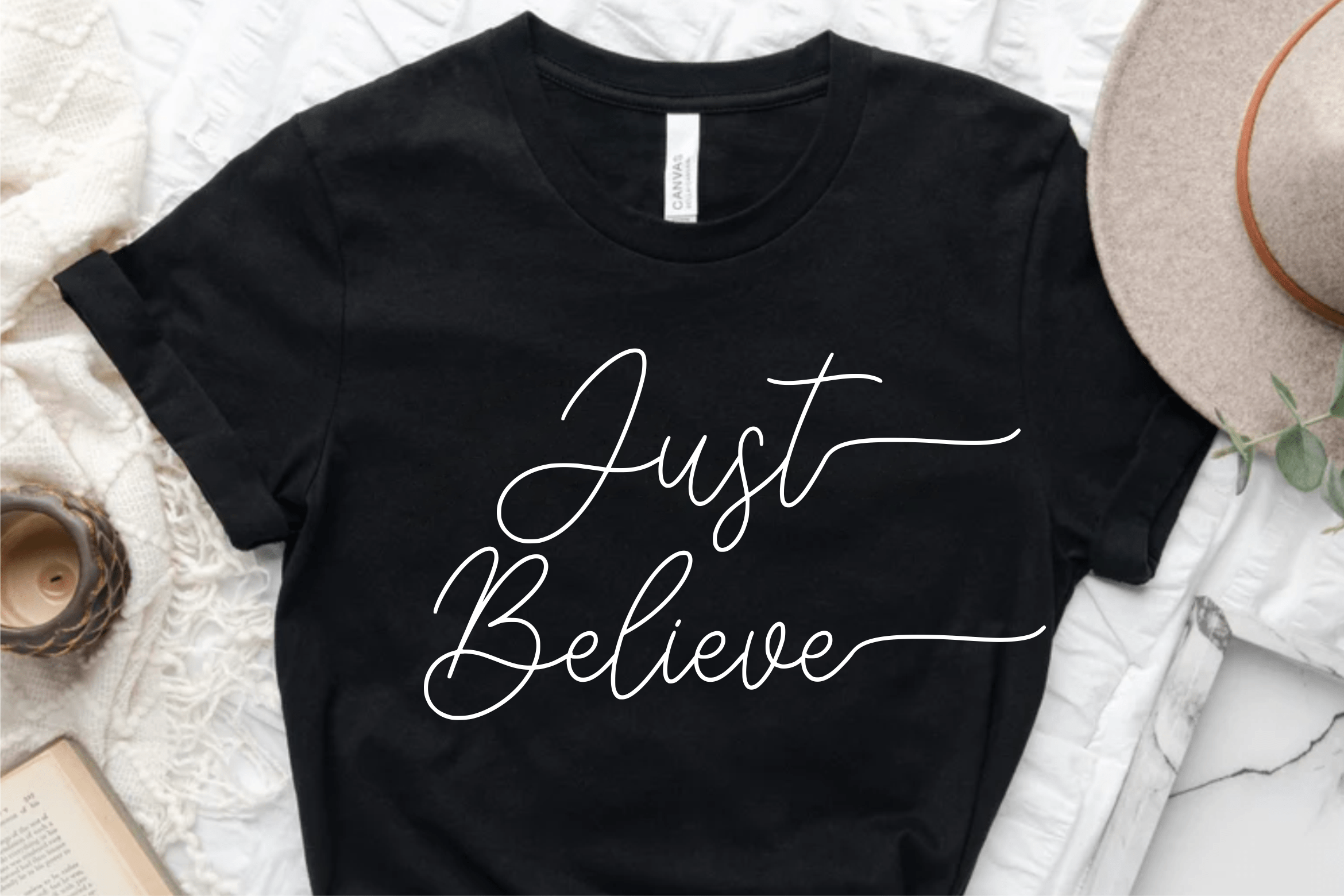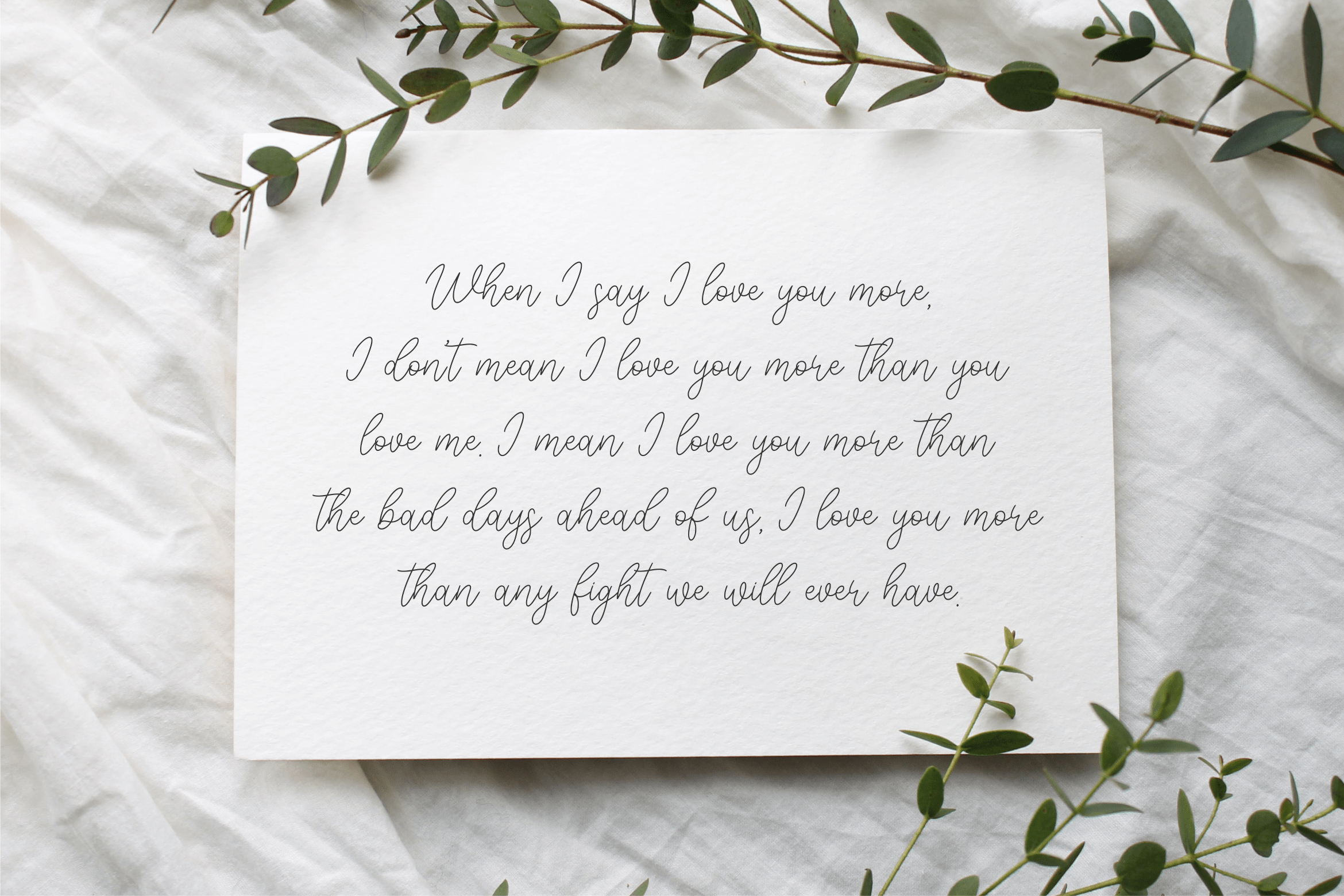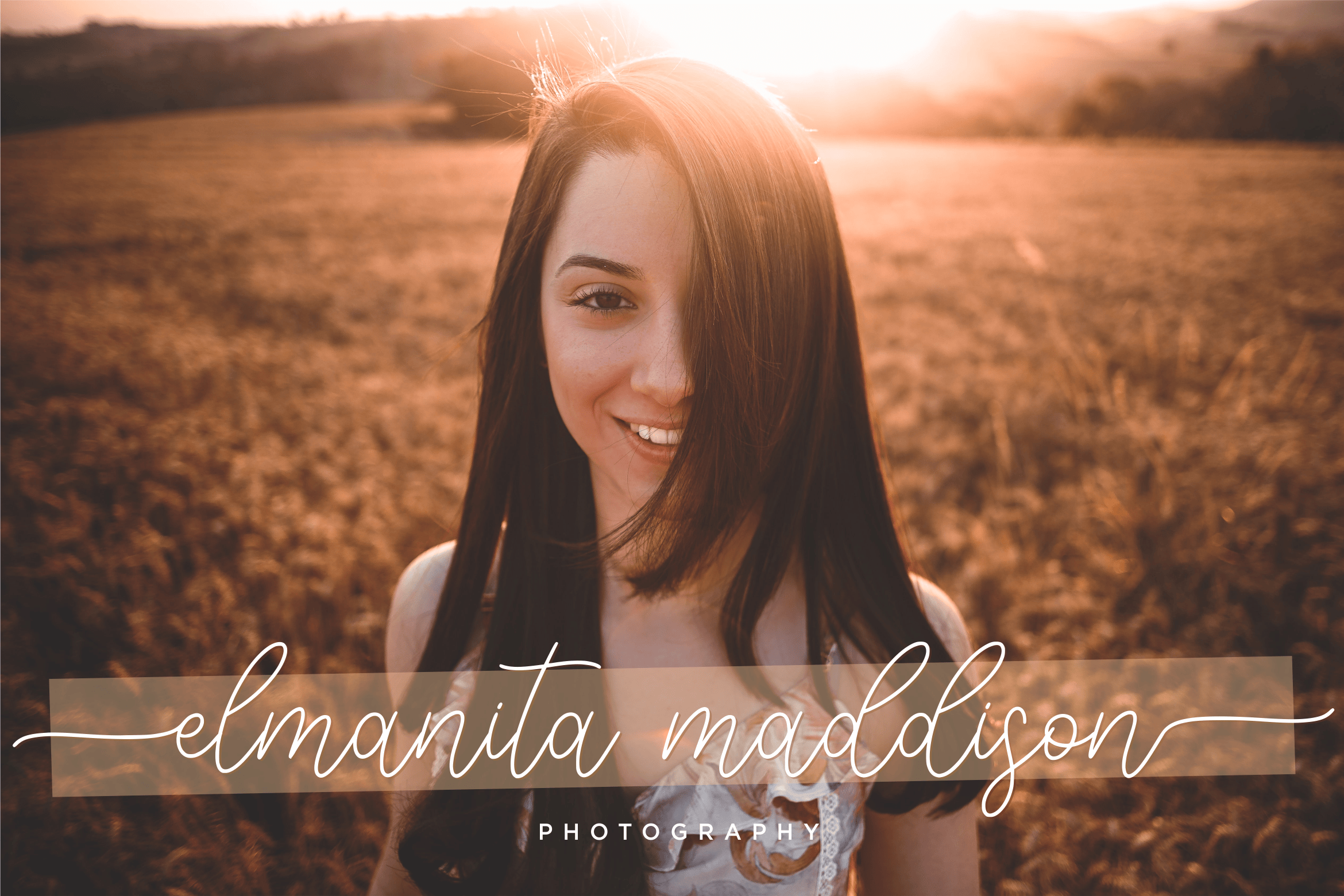
Fabulousline Font
Fabulousline Handwritten Font
This is a modern handwritten font perfect for product packaging, branding projects, magazines, social media posts, weddings, or just used to express words above the background. This font is PUA encoded, which means you can access all glyphs and swashes with ease!